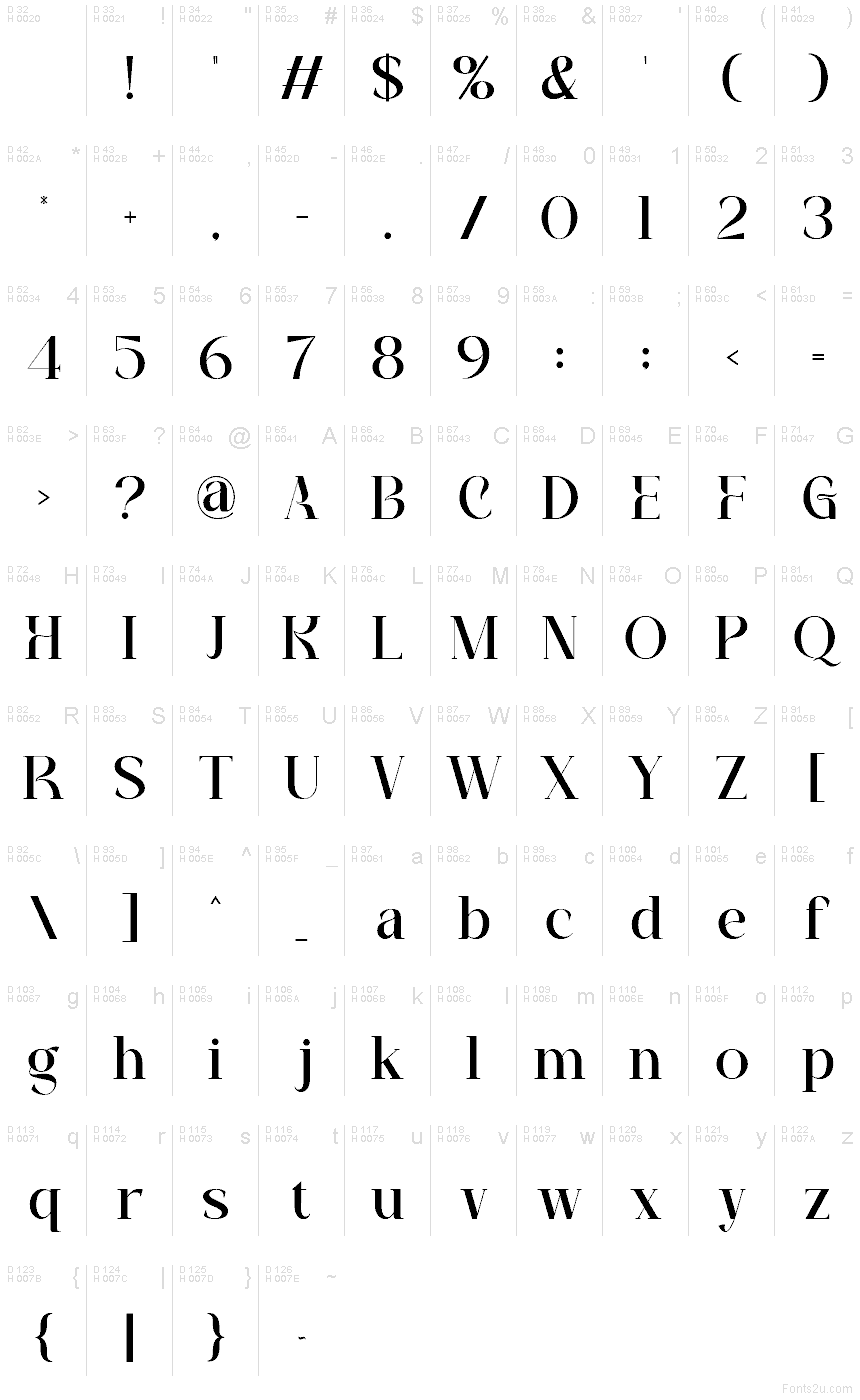
Kolagi
Kolagi font by Ermedia Studio is a free high-contrast serif font built on sculpted contrast and elegant drama. Thick, glossy stems snap into whisper-thin hairlines, while curving terminals add a lush, ribbon-like flow that feels both refined and modern. The letters sit with confident rhythm—sharp, inky, and deliberate—so headlines read with a couture snap rather than a shout.
Using Kolagi, you’ll get striking results on beauty branding, boutique logos, magazine covers, packaging, event invitations, and poster titles. This free font shines at large sizes and rewards generous tracking. For body copy or captions, pair it with a clean grotesk sans to balance the flourish with clarity.